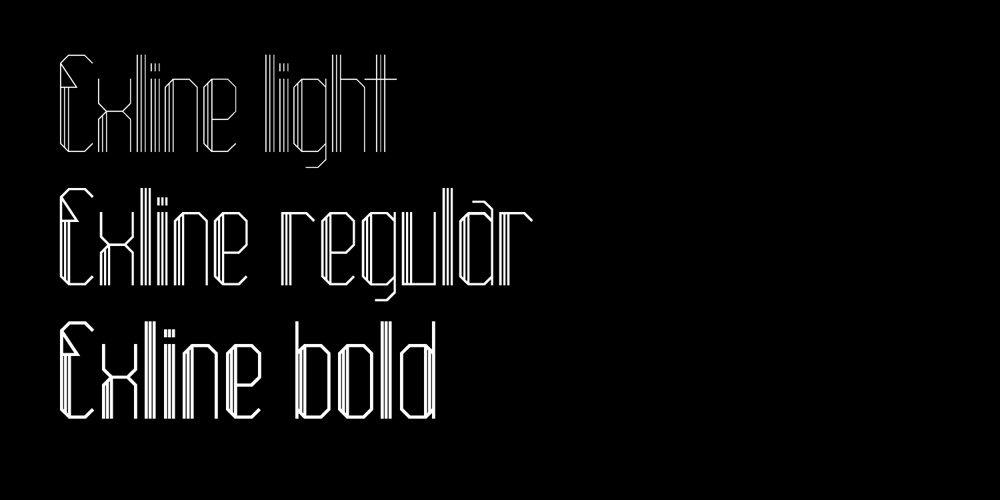
Alt Exline
Alt Exline font
Alt Exline Font Family was designed by Andreas Leonidou and published by ALT. Alt Exline contains 3 styles and family package options. Exline is yet another experimental display typeface for use on logos and titles and everywhere else you want 😀